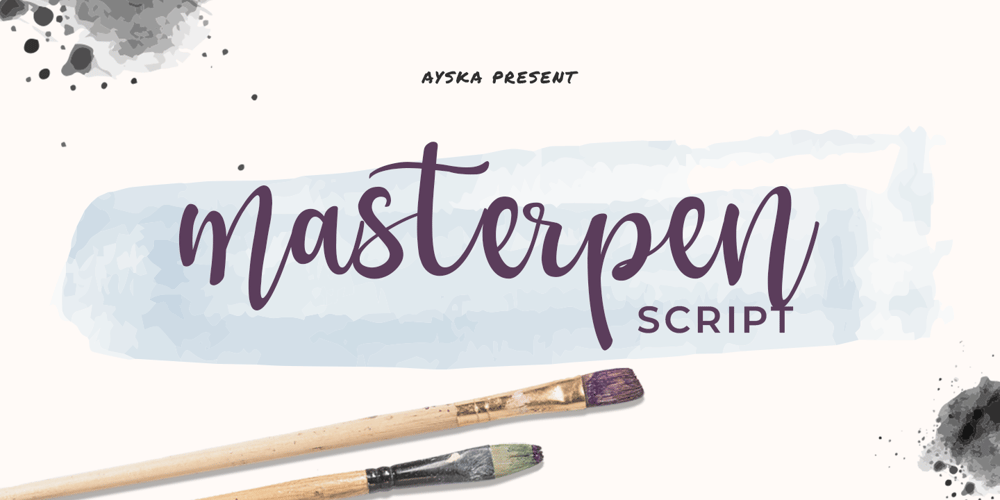
Masterpen Script Font Family was designed by Dhoni Trihatmoko and published by Ayska. Masterpen Script contains 1 styles and family package options. Masterpen Script is an handwritten font that is suitable for branding, signature, wedding invitation, promotion, product packaging, and other needs. This font is modern, simple, but still authentic. You will get full set of lowercase and uppercase letters, numerals and punctuation, multilingual symbols, lowercase beginning and ending swashes, ligatures and extra swashes